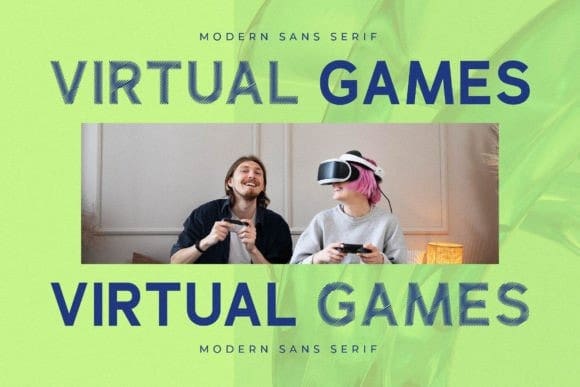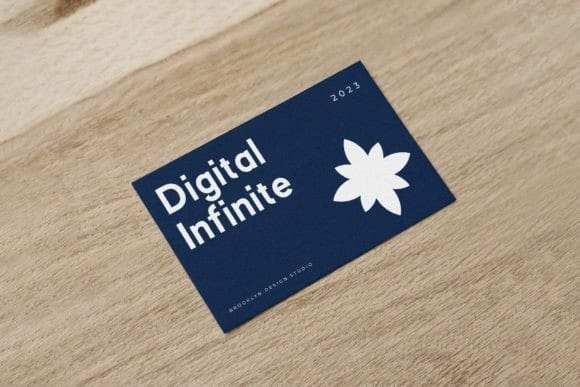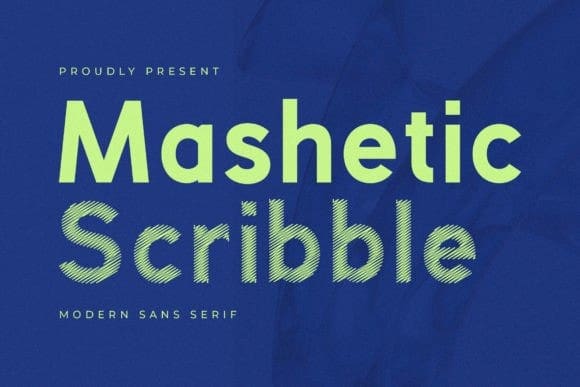
Mashetic Font
Mashetic Font by Storytype Studio 15,547 downloads
Mashetic Font
Mashetic Font is a bold and assertive serif font. No matter the topic, this font will be an incredible asset to your fonts’ library, as it has the potential to elevate any creation.